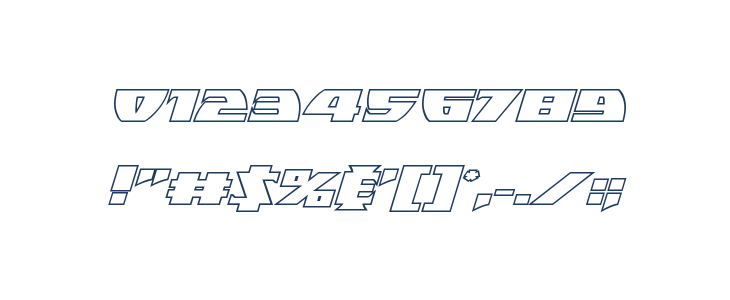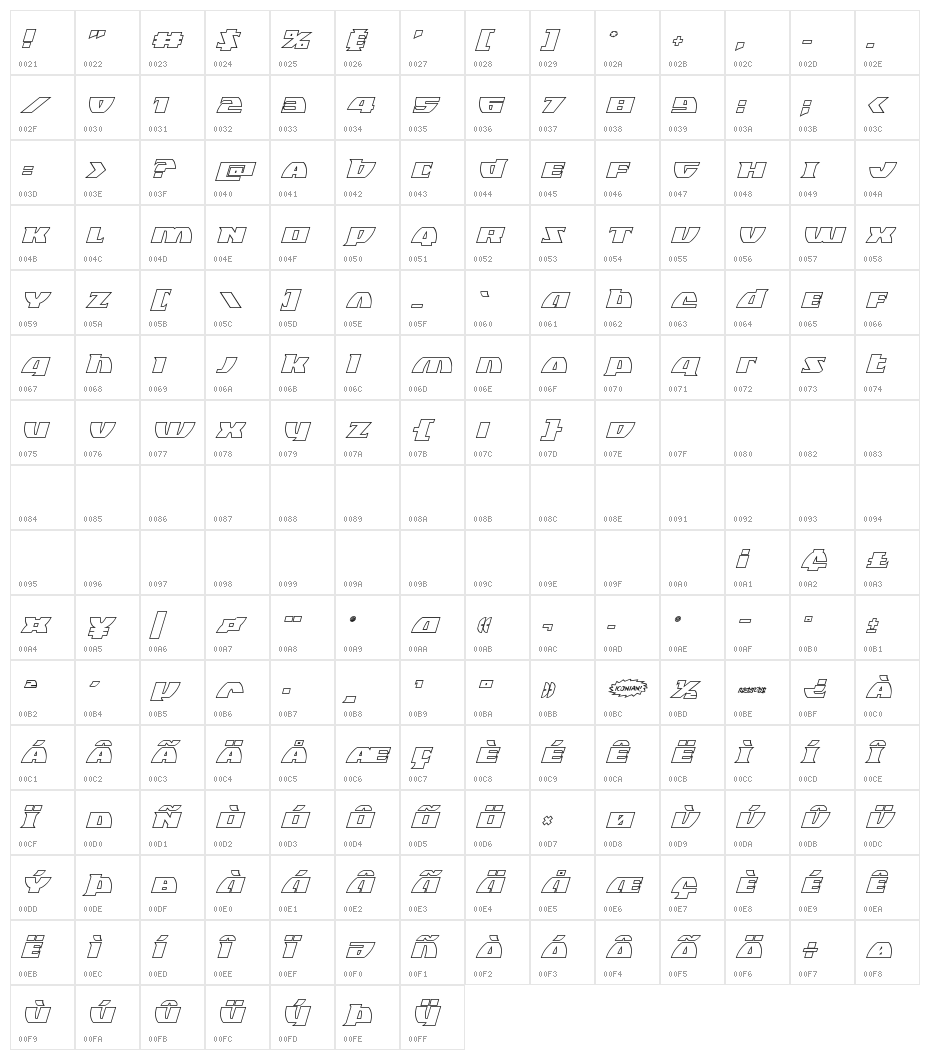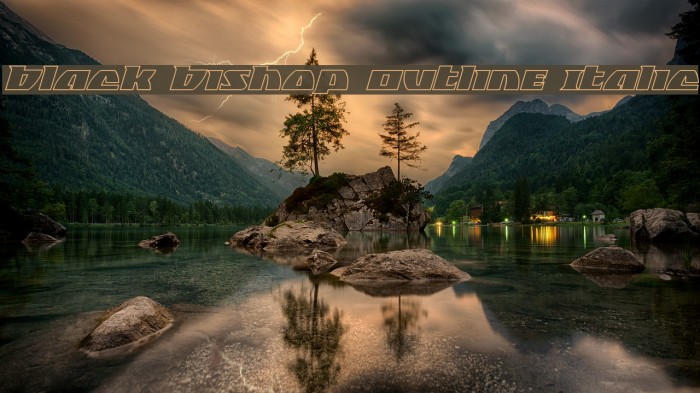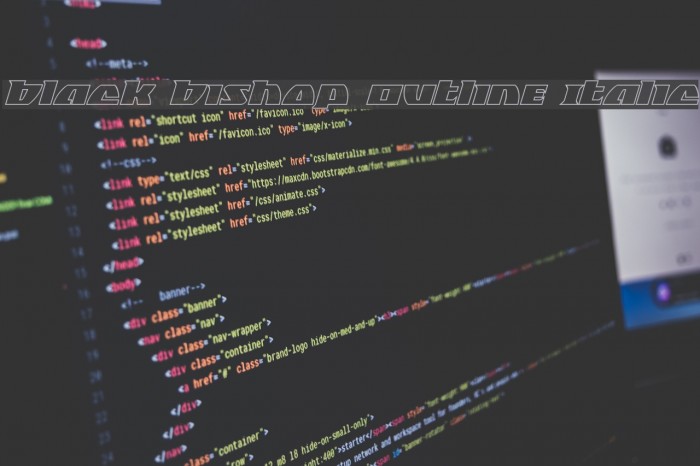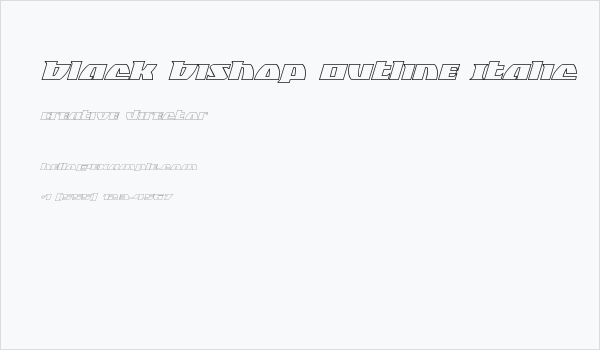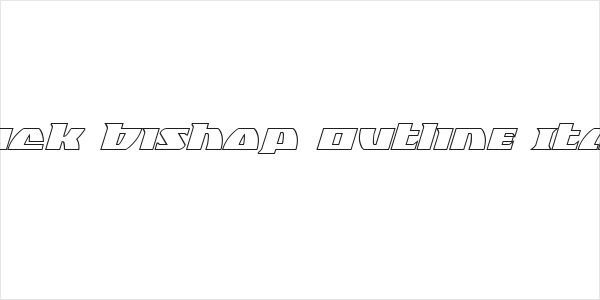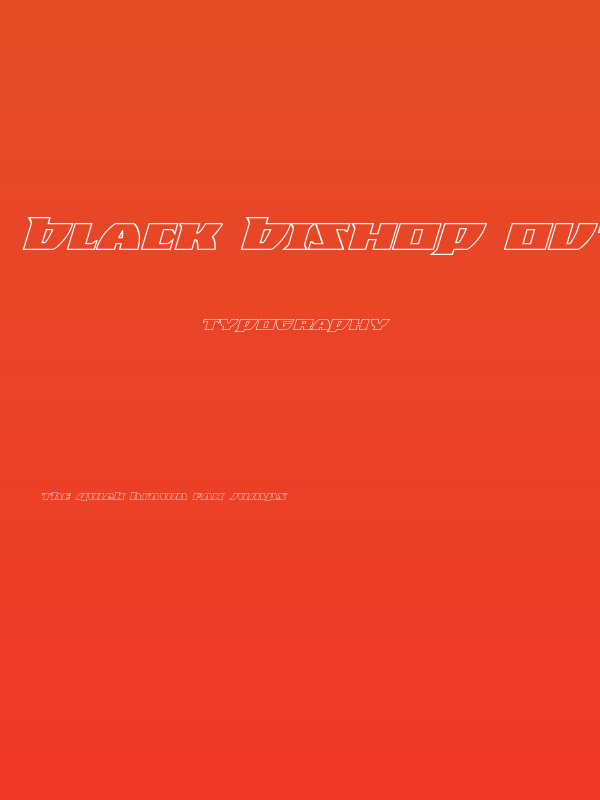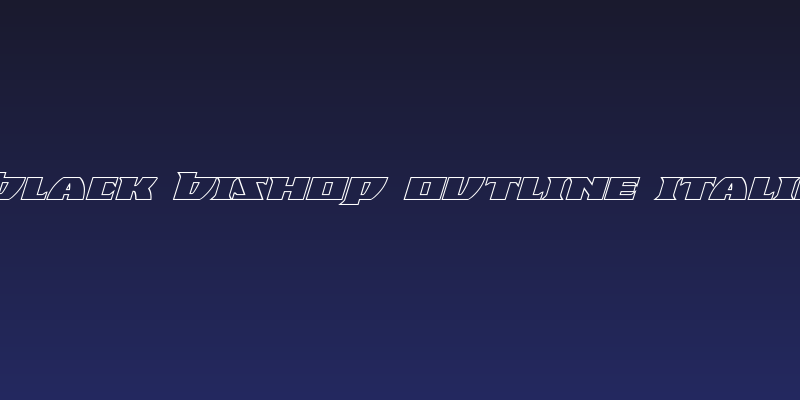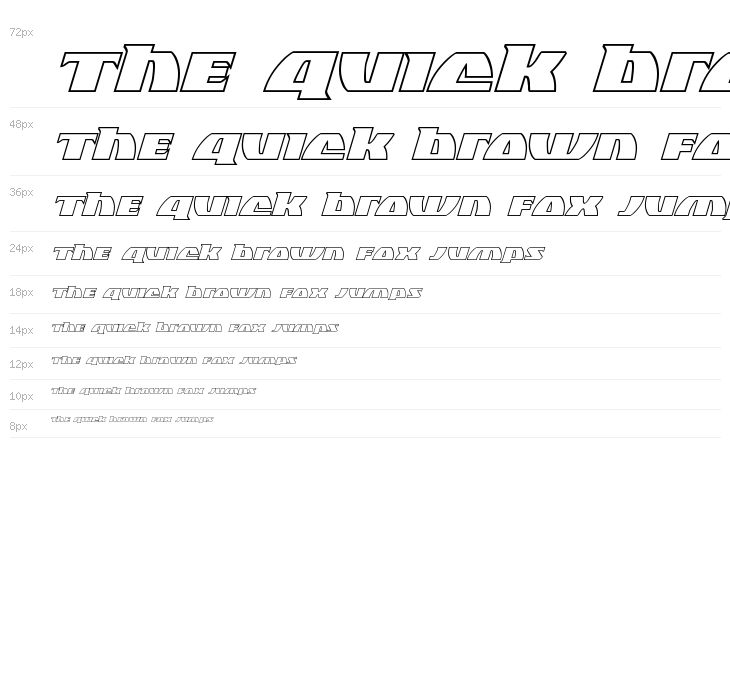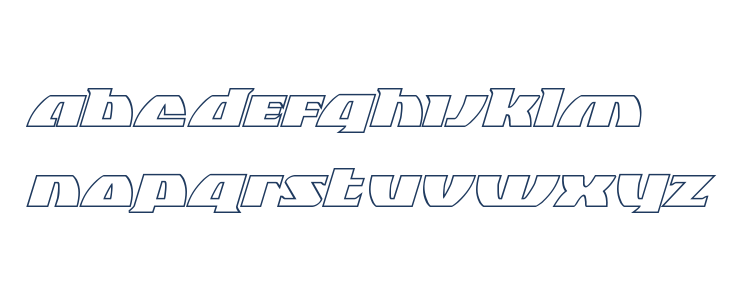
Black Bishop Outline Italic Font
Black Bishop Outline Italic Description
This font features a bold, geometric outline style with an italic slant, giving it a dynamic and modern appearance. The characters are constructed with sharp angles and straight lines, creating a futuristic and edgy look. The uppercase and lowercase letters maintain a consistent style, with the lowercase slightly smaller but equally impactful. Numbers and special characters follow the same design principles, ensuring uniformity across all glyphs. The outline nature of the font adds a unique touch, making it stand out in various design contexts.
| Proposed Projects | Ideal for projects requiring a modern and edgy aesthetic, such as tech branding, video game titles, or sci-fi themed posters. |